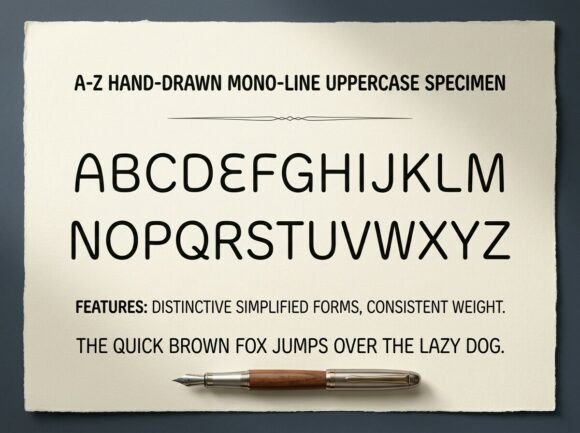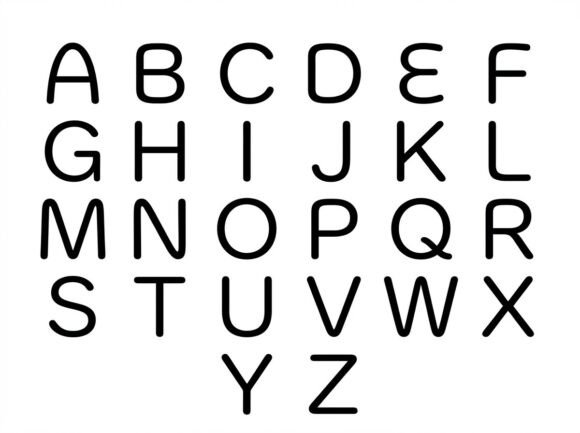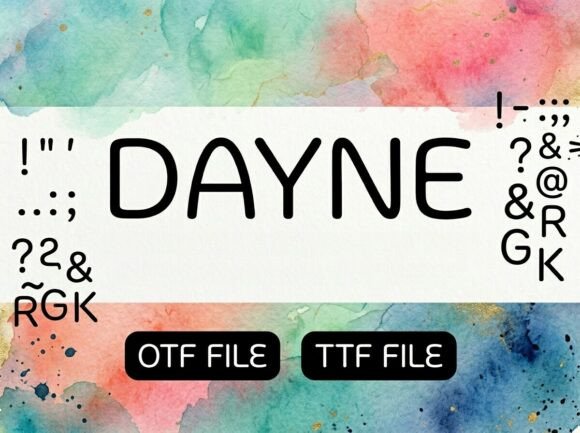
The Designer’s Delight: Dayne Font
Have you ever been in the middle of a design project, pouring your heart and soul into every detail, only to get stuck on one thing: the font? I certainly have. It was during one of those moments, working on a minimalist branding project for a high-end lifestyle client, that I stumbled upon Dayne, a clean handwritten font that changed the game. In this article, I’ll share my experience with Dayne, its features, and how to make the most of it in your designs.
First Impressions: A Love Affair with Dayne
Dayne is more than just a font; it’s an experience. Its consistent monolinear strokes and soft, rounded terminals immediately captured my attention, exuding a sense of effortless elegance that I knew my client would love. The balanced proportions and airy negative spaces provide a sophisticated yet approachable aesthetic, making it perfect for minimalist branding, bespoke stationery, high-end lifestyle magazines, and chic social media headers.
What I Love About Dayne
- ✨ Effortless Elegance: Dayne’s monolinear strokes and soft terminals give it a unique, elegant feel that’s hard to achieve with digital fonts.
- ✅ Versatility: Whether you’re working on branding, magazines, or social media headers, Dayne fits right in.
- 💡 OpenType Features: Dayne comes with a range of OpenType features, including stylistic alternates and glyphs, allowing for a high degree of customization.
While Dayne is an exceptional font, there are a few things to keep in mind:
- 🤔 Limited Contrast: Dayne’s monolinear design means it doesn’t have a lot of contrast between thick and thin strokes, which might not be ideal for all types of projects.
- ⚠️ Glyph Limitations: While Dayne has a good range of OpenType features, it’s not exhaustive. Some designers might find themselves wishing for more glyph options.
The Story Behind Dayne
Dayne was inspired by the art of traditional calligraphy and the effortless elegance of a master artist’s ink pen. Its designer aimed to capture the warmth and authenticity of handwriting while maintaining the clarity and sophistication required for modern design. The result is a font that feels both artisanal and contemporary.
| What makes Dayne unique? | Dayne’s unique combination of monolinear strokes and soft, rounded terminals gives it an elegant yet effortless feel. |
| Does Dayne support OpenType features? | Yes, Dayne includes OpenType features such as stylistic alternates and glyphs, allowing for a high degree of customization. |
| Is Dayne suitable for body text? | While Dayne is elegant and highly legible, its monolinear design might not be ideal for long-form body text. It’s best used for headlines, titles, and short paragraphs. |
In conclusion, Dayne is a versatile and elegant font that brings a touch of sophistication and warmth to any design project. Its unique features, combined with its versatility, make it an excellent choice for designers looking to add a bit of artisanal prestige to their work.